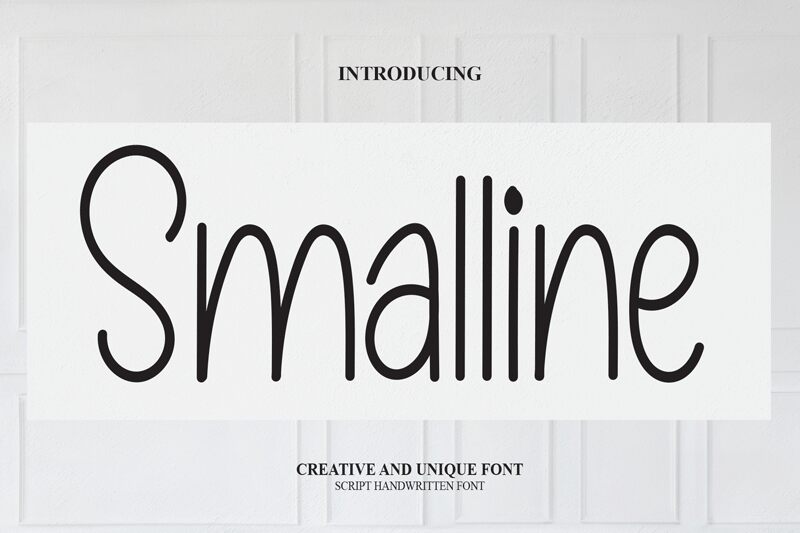
Smalline
Smalline, the latest creation from Belina Studio, is a semi-light and semi-condensed handwritten font that adds a personal touch to any project. Its unique style is perfect for invitations, greeting cards, social media graphics, and even product packaging. Whether you're looking to add a touch of sophistication or playfulness to your designs, Smalline is the perfect choice. With its clean lines and subtle curves, this font will make your text stand out while still maintaining readability. Give your next project a touch of personality with Smalline!
the latest style letters are perfect for wall displays, wedding invitations, social media post logos, advertisements, product packaging, product designs, labels, photography, watermarks, invitations, stationery, and any project that requires taste handwriting.